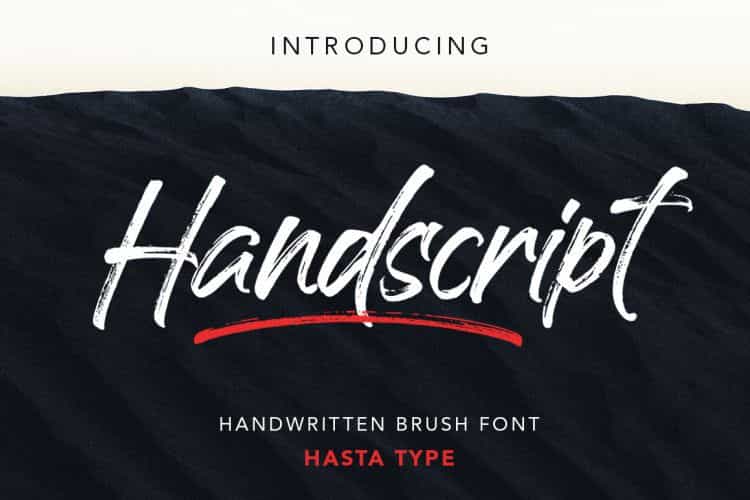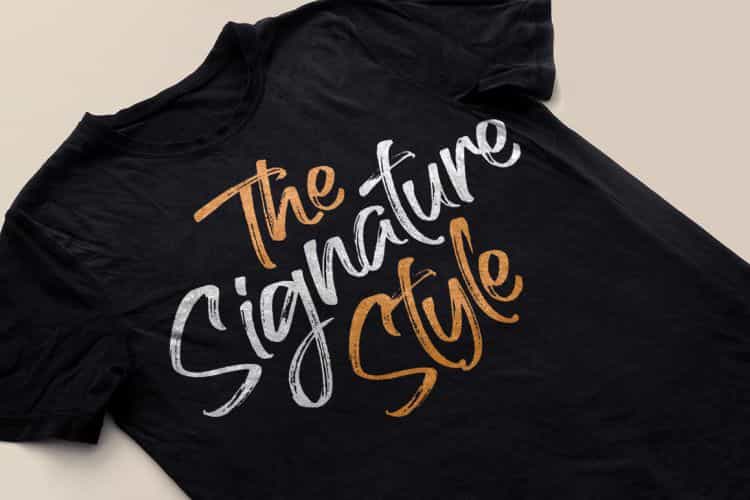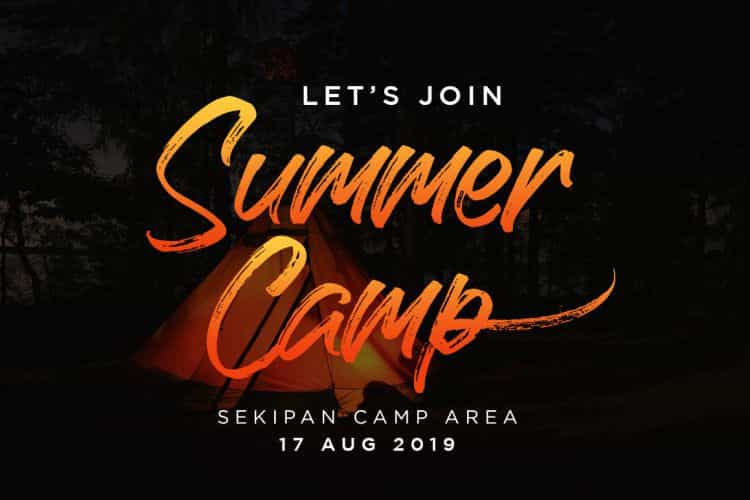
Introducing Handscript Font. It is a handwritten brush font with a very nice brush texture. This font is hand-drawn using a brush pen which makes it original and natural.